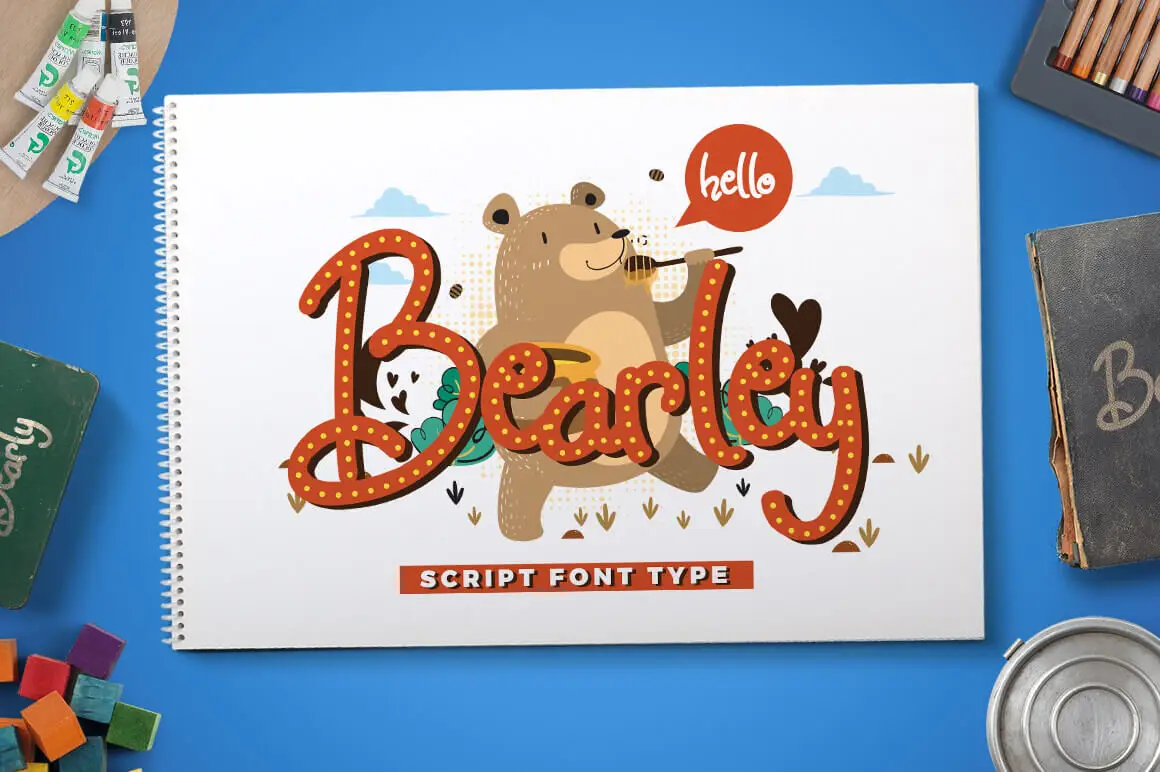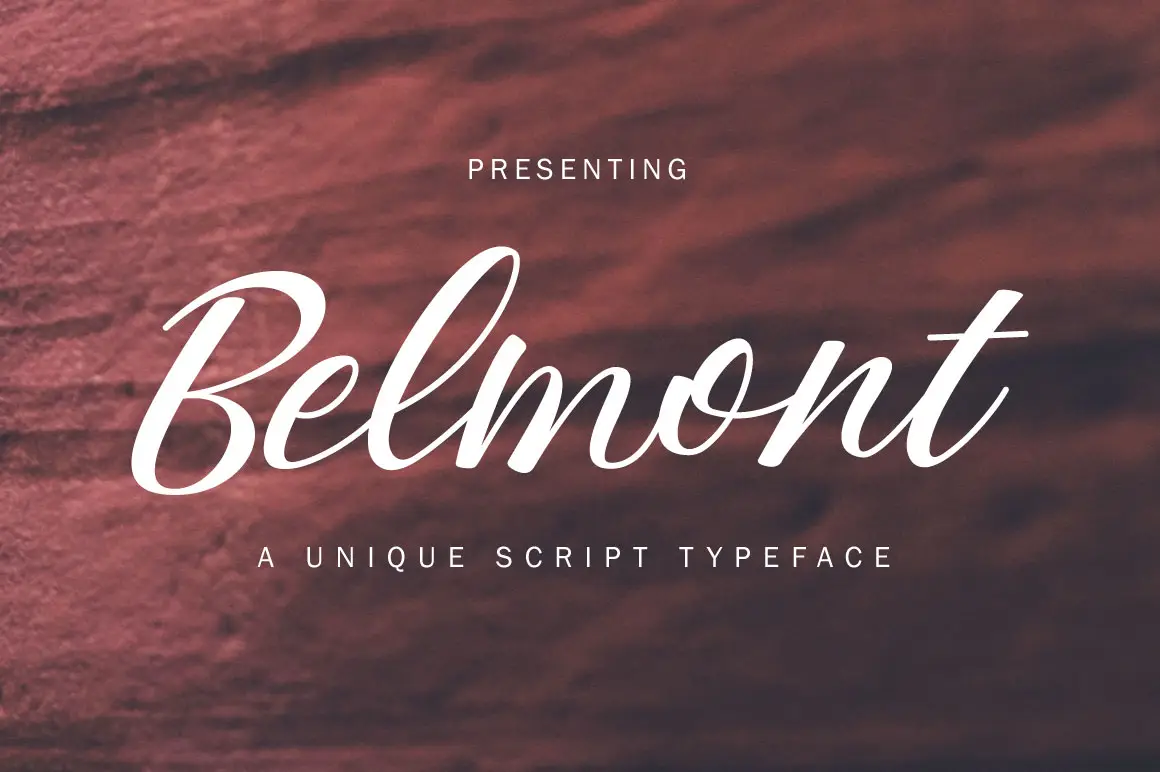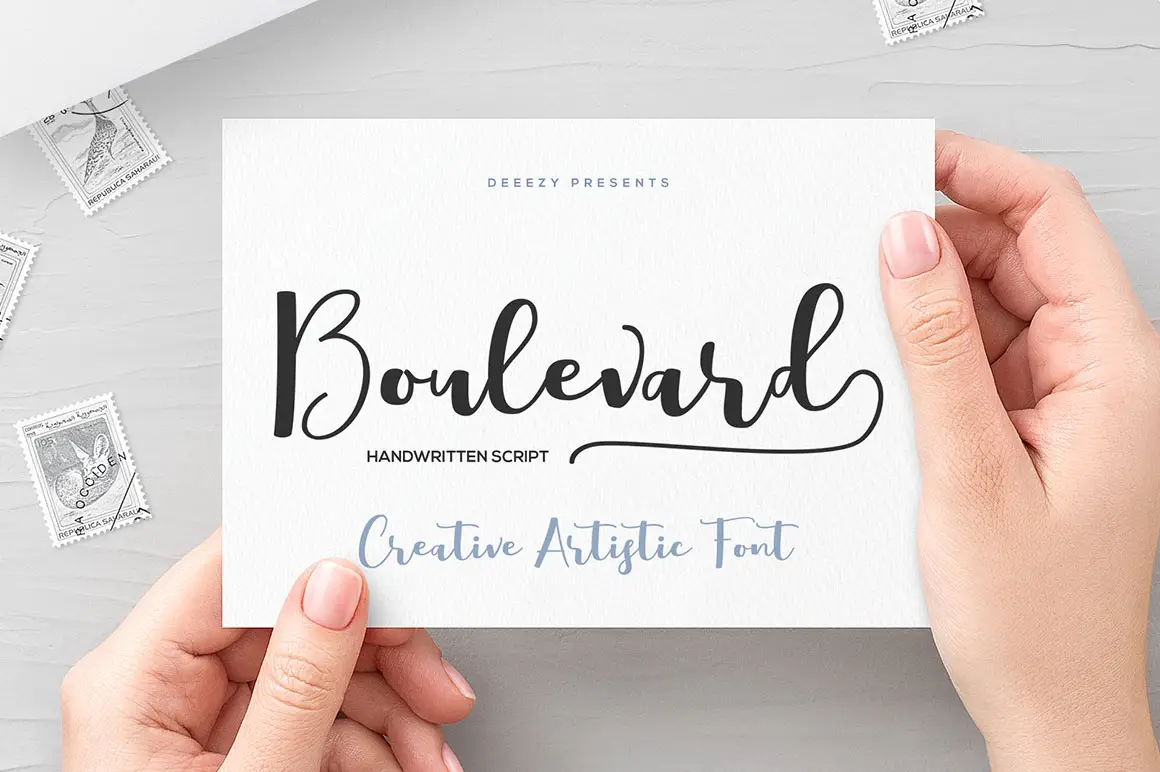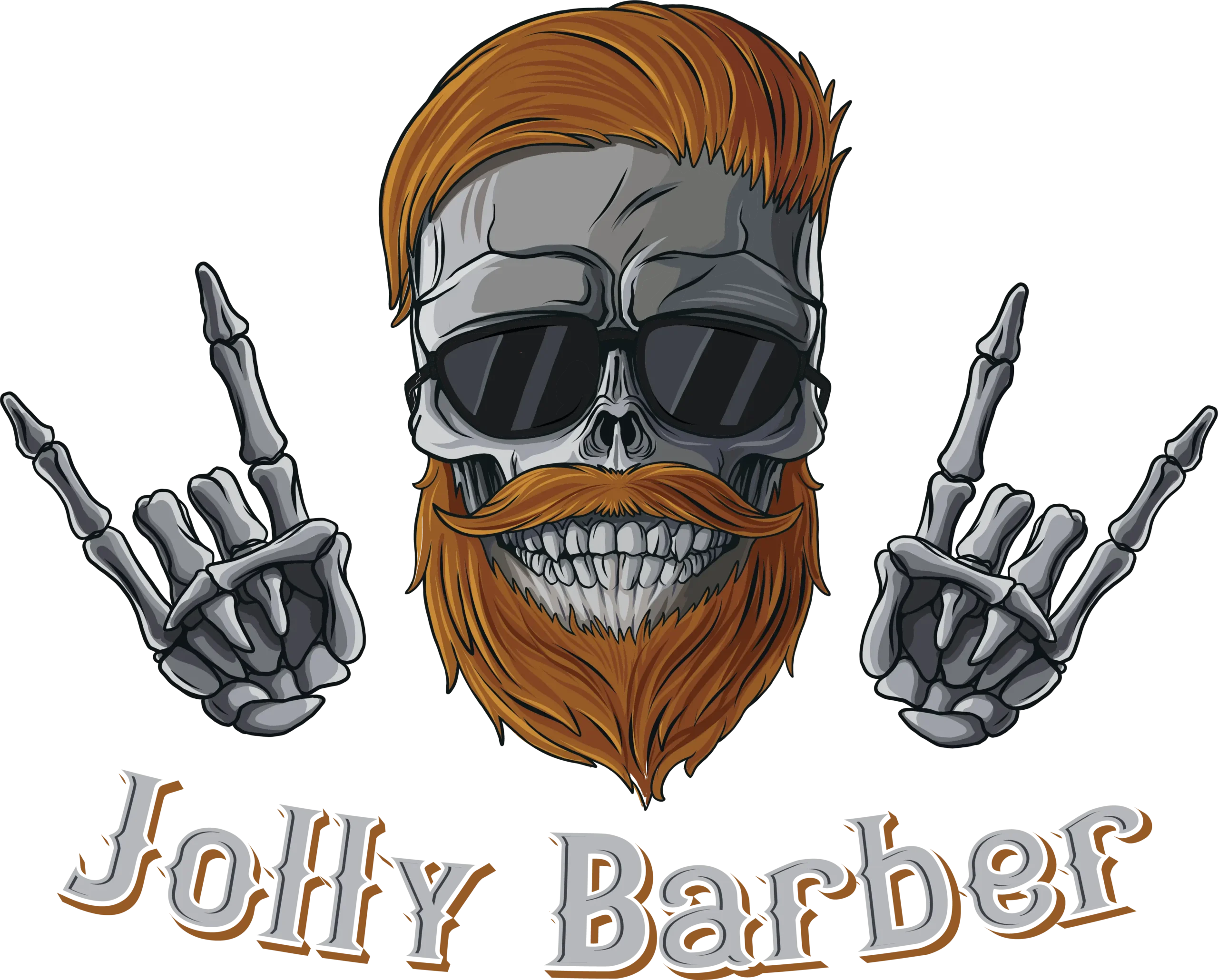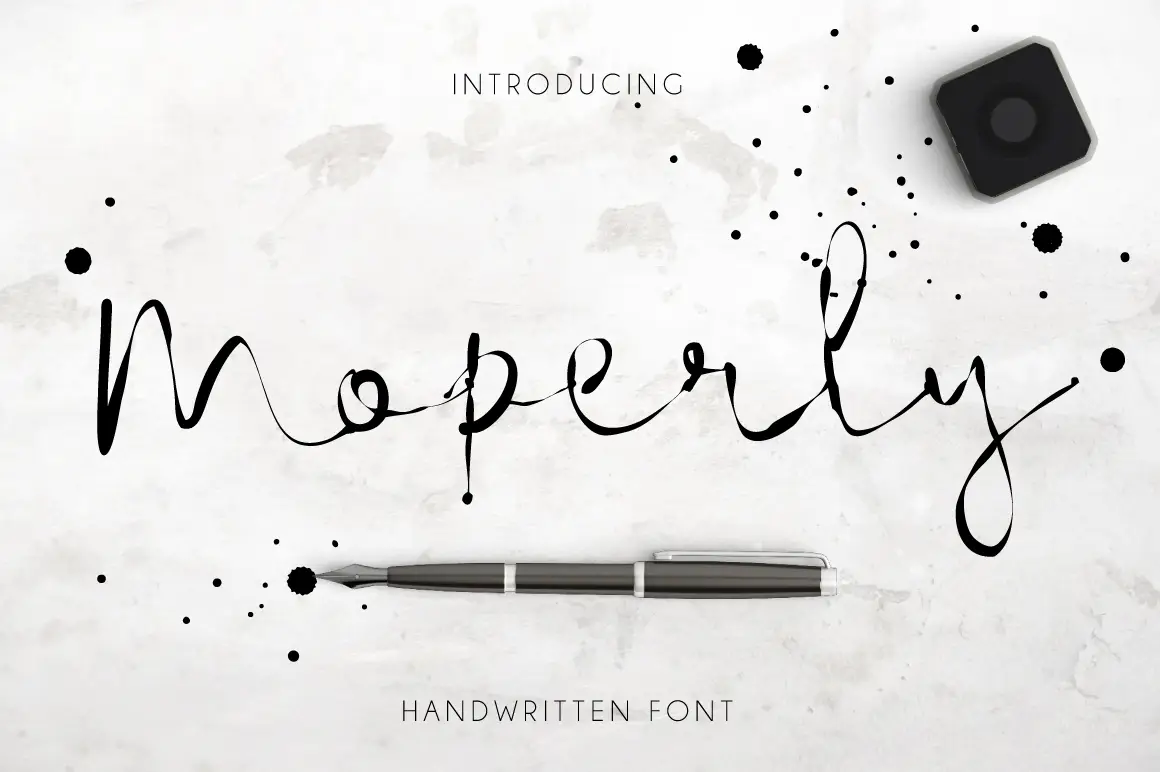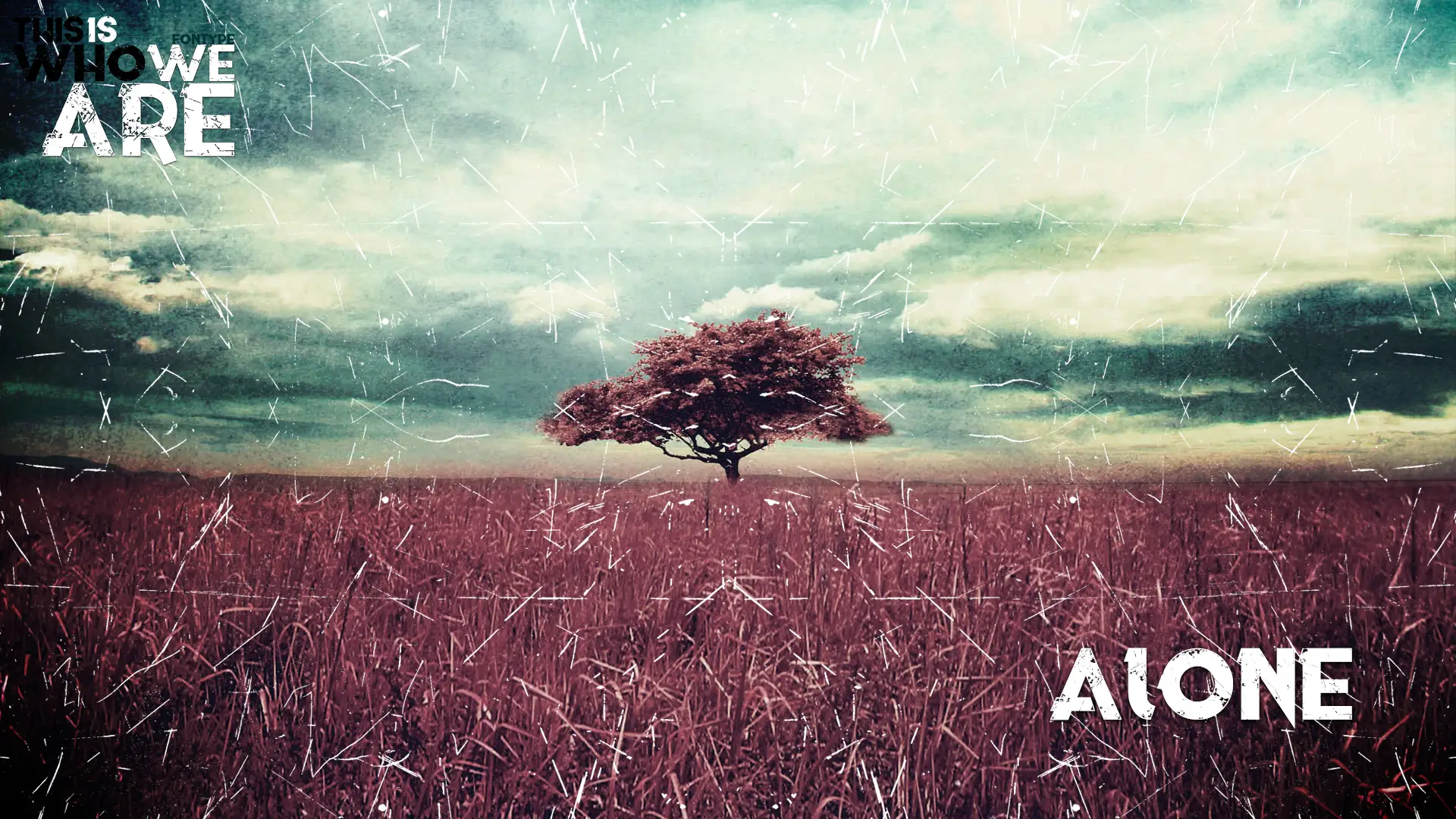
Hey there, creative soul! π¨ Ready to level up your design game? The brushespack Collection Part 101 is an absolute goldmine of 20 stunning assets that will breathe new life into your projects. From futuristic vintage fonts to playful script typefaces, this collection is packed with everything you need to create magic. Letβs dive in together! β¨
Futuristic Otf Vintage Label Font
This font is a dream come true for label lovers! π·οΈ It blends retro vibes with a futuristic edge, making it perfect for branding, packaging, and any project that needs a nostalgic kick with a modern twist.
Jollybarber
Get ready to bring some serious flair to your toolkit! π Jollybarber is a versatile digital asset thatβs perfect for branding, marketing, and social media graphics that demand attention.
Japanese Otf Vintage Label Font
Feel the serenity of traditional Japanese design! π― This font captures pure elegance and nostalgia, making it a must-have for authentic vintage labels and artistic projects that whisper sophistication.
Sweet Home Elegant Font
Add a touch of grace to your work with this beautifully crafted typeface. πΈ Its graceful curves make it ideal for invitations, branding, and anything that needs a sophisticated, cozy feel.
Moperly
Unleash a unique creative flair with Moperly! π This collection of high-quality graphics and illustrations is super easy to customize and adapt for both web and print projects.
Boulevard
Stroll down the stylish path with Boulevard! π This modern design asset is perfect for branding, marketing materials, and digital interfaces that need a fresh, contemporary look.
This Is Who We Are Font
Make a bold statement with a font that blends modernity and timelessness. π With clean lines and elegant curves, itβs incredibly versatile for logos, headers, and all your branding needs.
Native
Get back to the roots of great design with Native! πΏ This high-resolution collection offers customizable elements that seamlessly integrate into any workflow, from web to print.
Belmont
Elevate your projects with the sophisticated charm of Belmont. π° With crisp, high-resolution graphics and user-friendly customization, itβs a total class act for any brand.
Tearos
Add a touch of the unexpected to your designs with Tearos! πͺοΈ This unique asset is easy to customize and works like a charm across major design software for both web and print.
Treath
Treat yourself to a treasure trove of high-res graphics! π Treath offers a variety of styles and themes designed to enhance your visual storytelling and make your projects pop.
Zeora Display Font
Make a massive impact with this bold and modern display typeface! β‘ Perfect for logos, web design, and headlines that need to grab attention instantly.
Bearley
Bring a playful yet sophisticated vibe to your projects with Bearley! π» Itβs perfect for branding, web design, and print materials that need a unique, loveable character.
White Funky Rabbit Font
Hop into fun with this whimsical, bold font! π Its rounded letterforms are perfect for childrenβs brands, playful logos, and any project that needs a dose of joy and personality.
Nations
Go global with your creativity using Nations! π This versatile collection offers high-resolution graphics and easy-to-edit templates that are perfect for diverse projects and themes.
Mellyscript
Let your words flow beautifully with Mellyscript! ποΈ This elegant script font is ideal for stunning wedding invites, branding, and social media graphics that need a personal, graceful touch.
Parlour
Welcome to the Parlour of style! ποΈ This elegant collection is packed with high-quality graphics and customizable elements that bring a sophisticated, chic feel to any project.
Rolo
Roll into creativity with Rolo! π This versatile digital asset offers professional-grade graphics that are highly customizable, making it a must-have for your design toolkit.